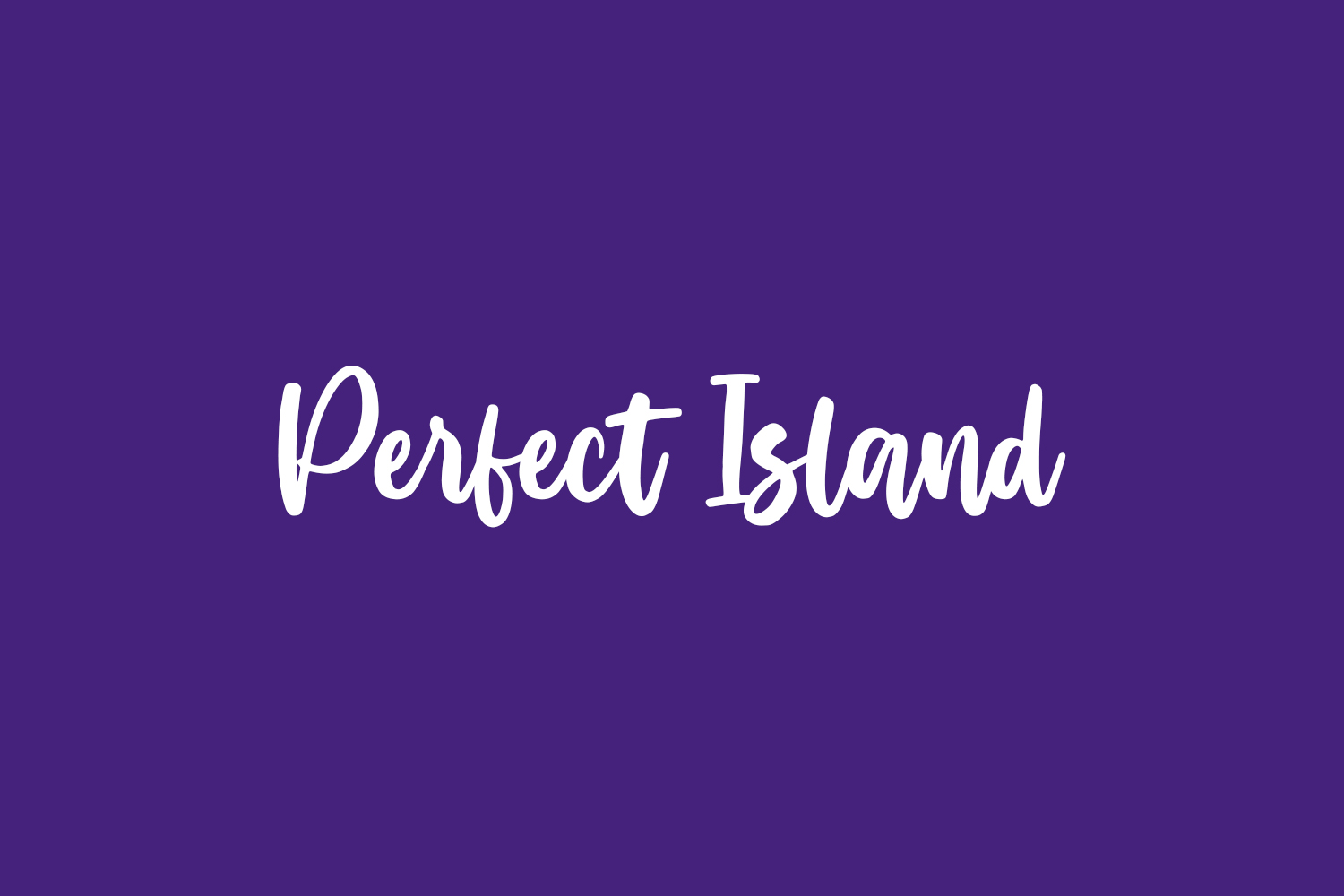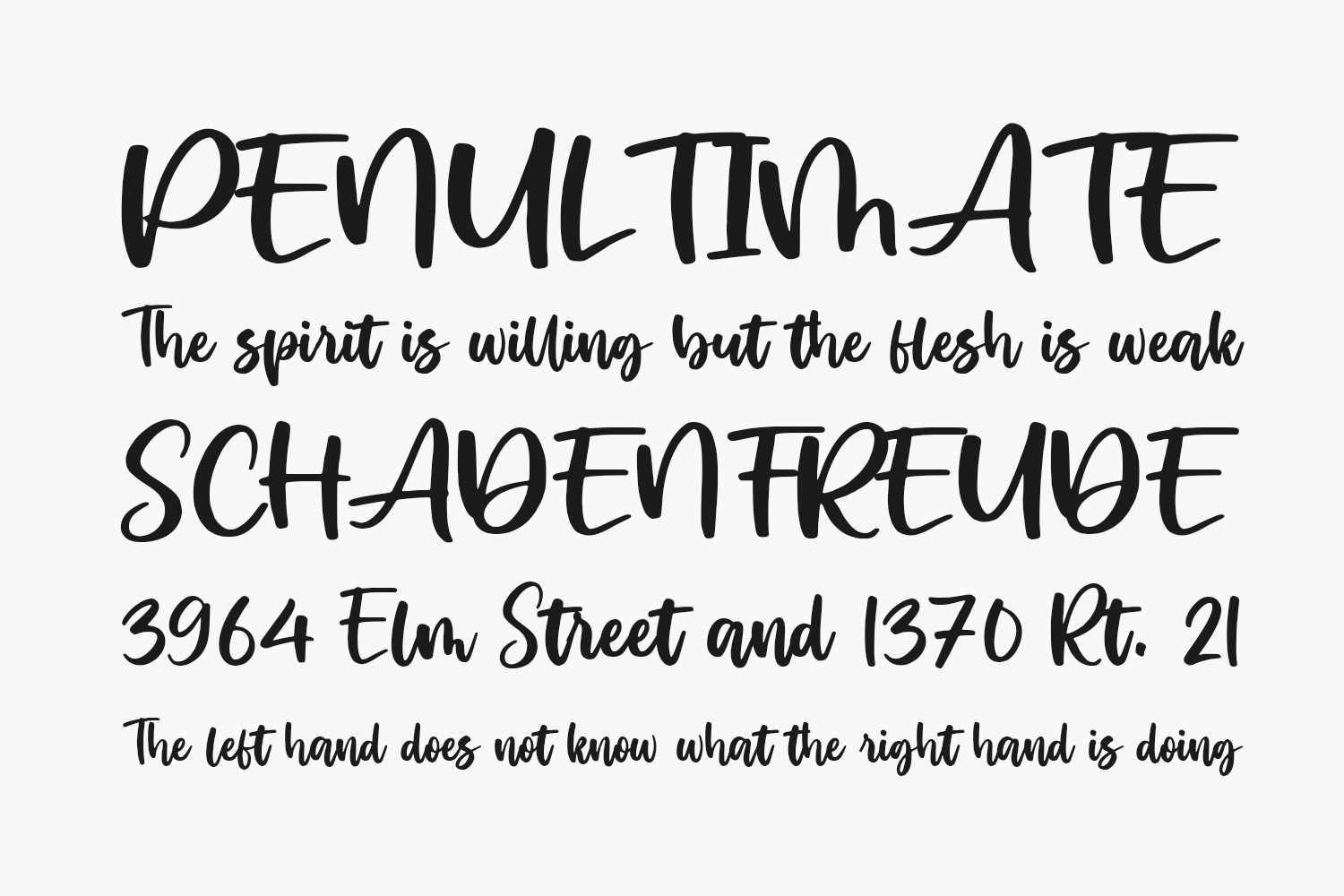
Perfect Island Free Font is a lovely script font featuring charming, playful characters that seem to dance along the baseline. Add this font to your most creative ideas, and notice how it makes them stand out. Perfect Island Free Font was designed by Balpirick Studio and is free for personal use only. Please purchase the full version for commercial use.